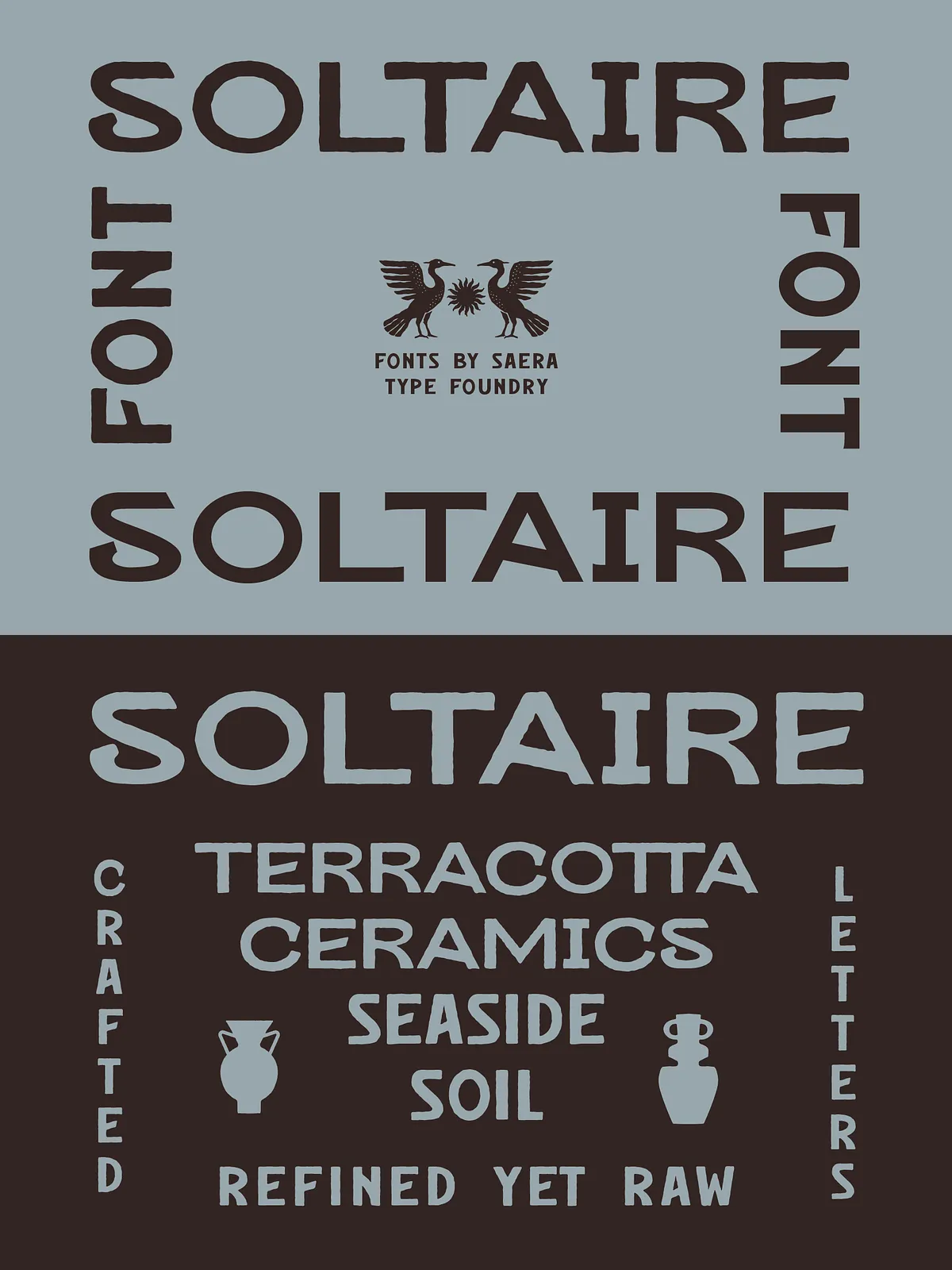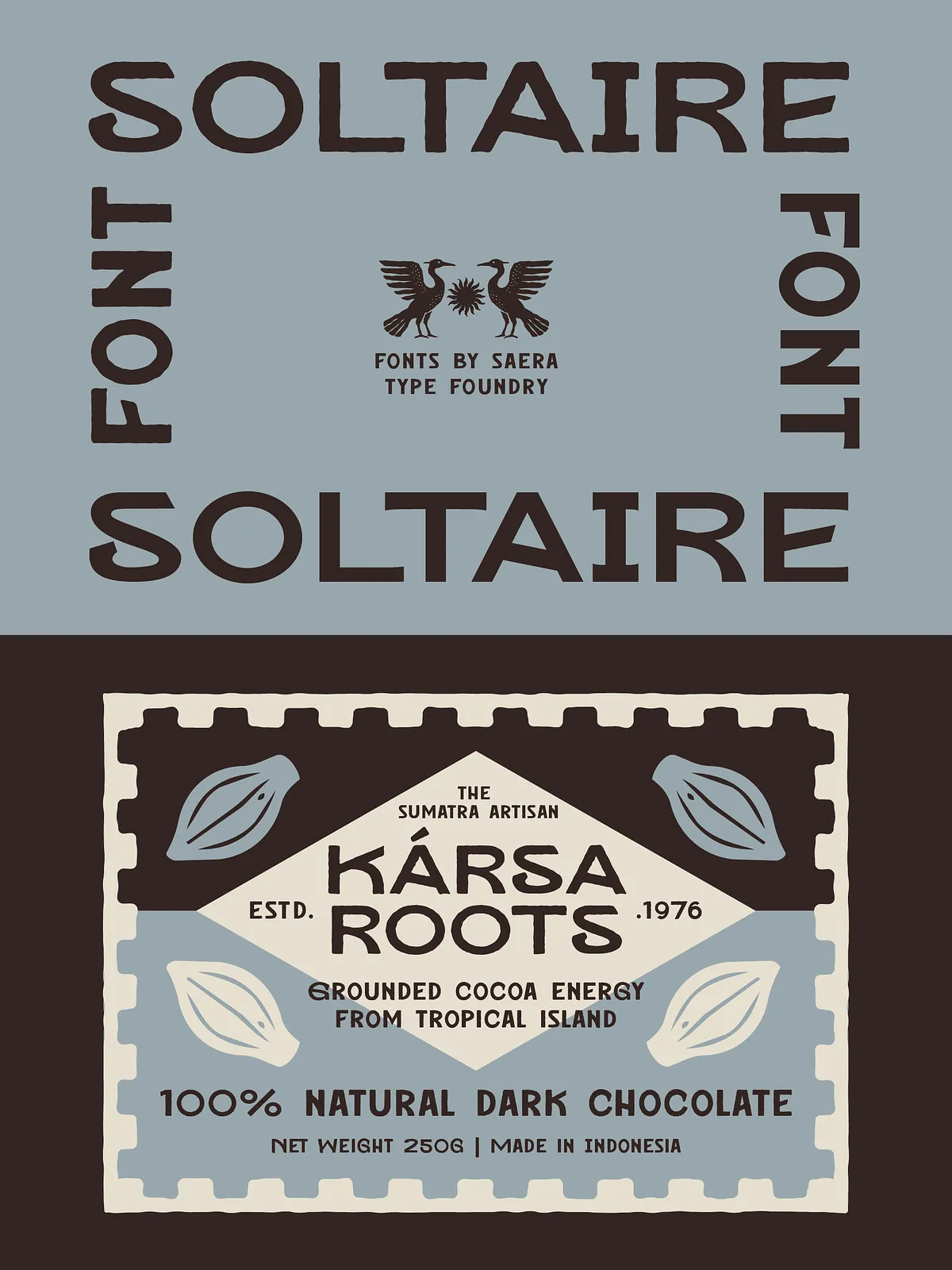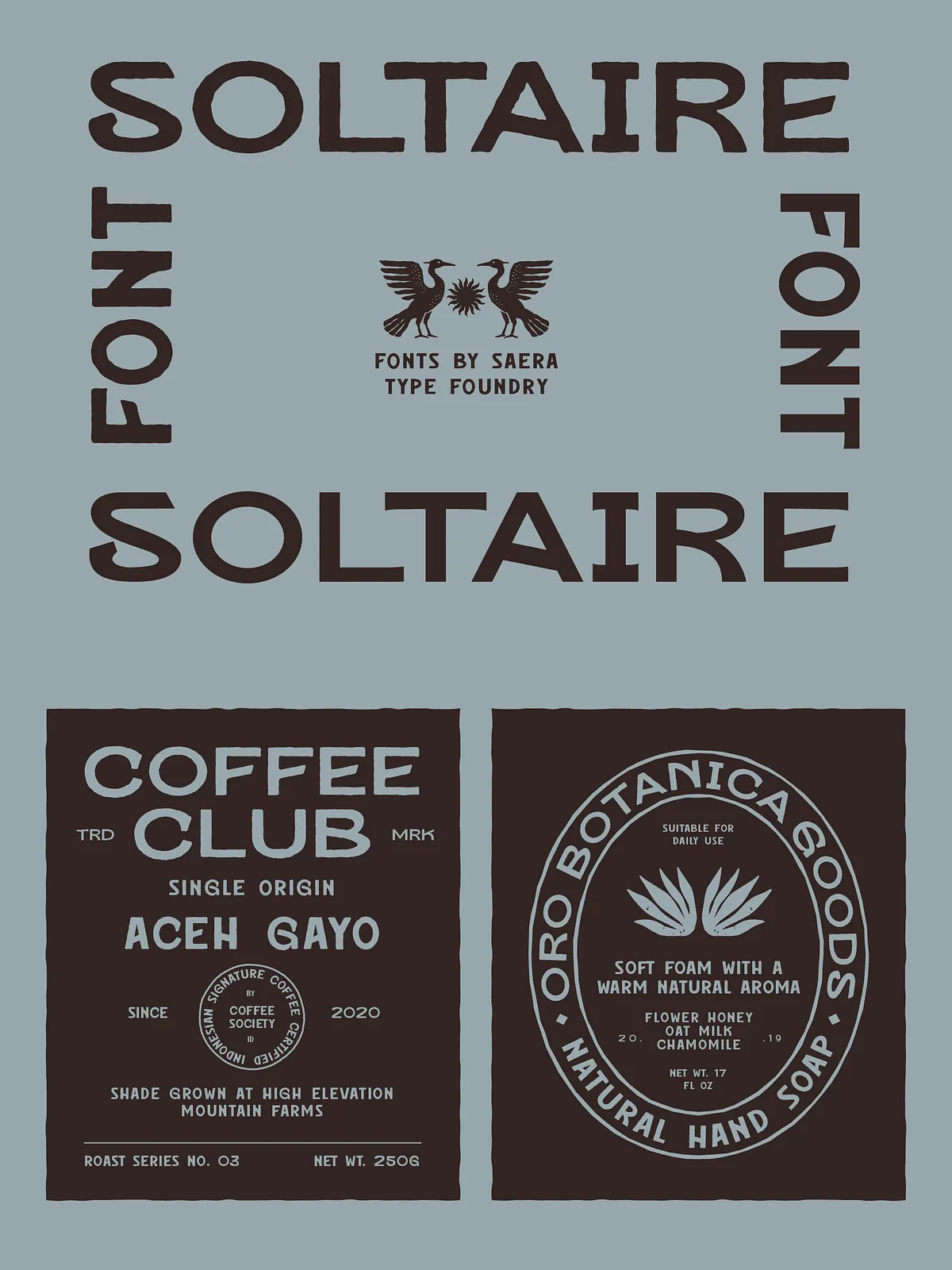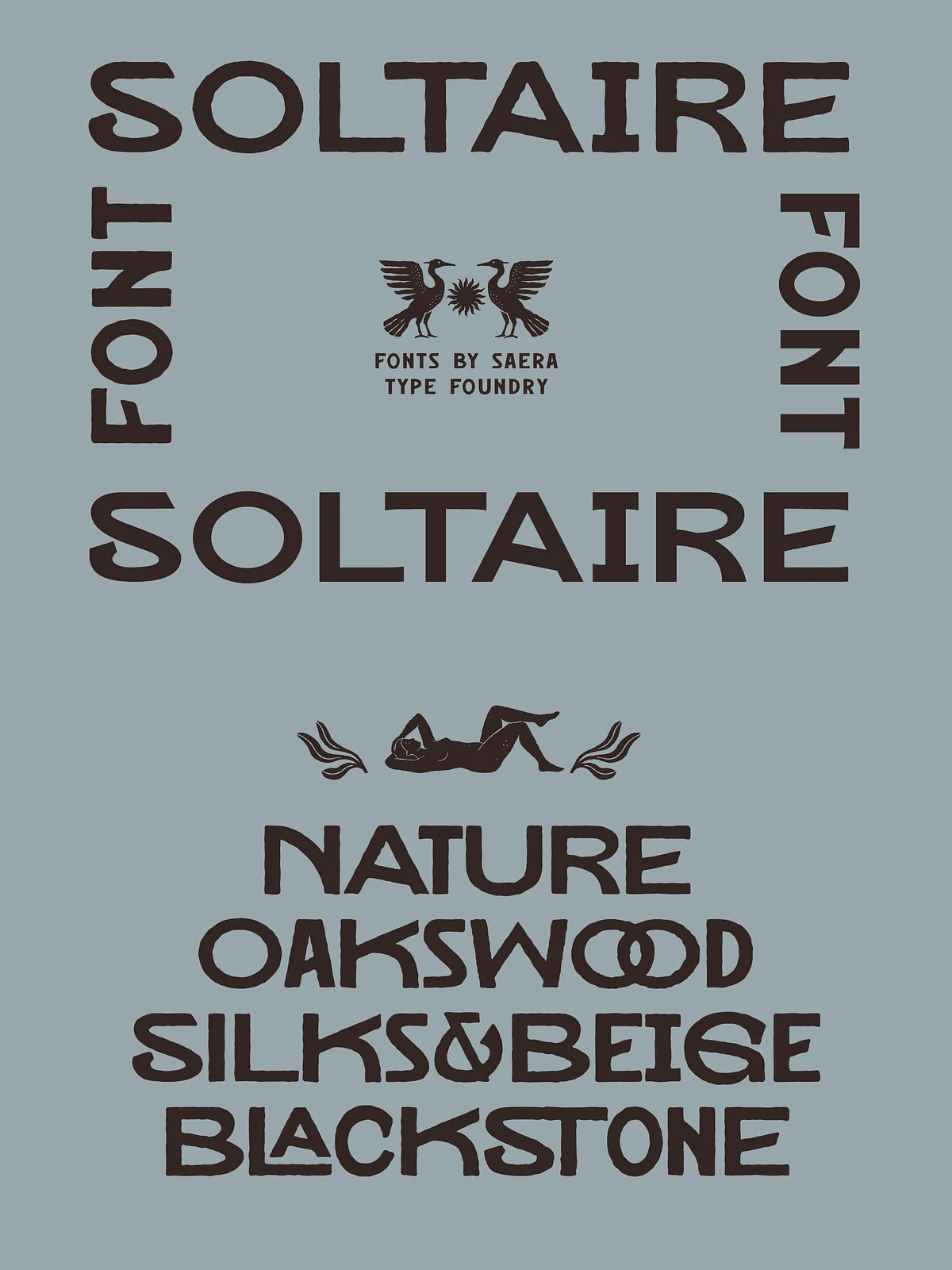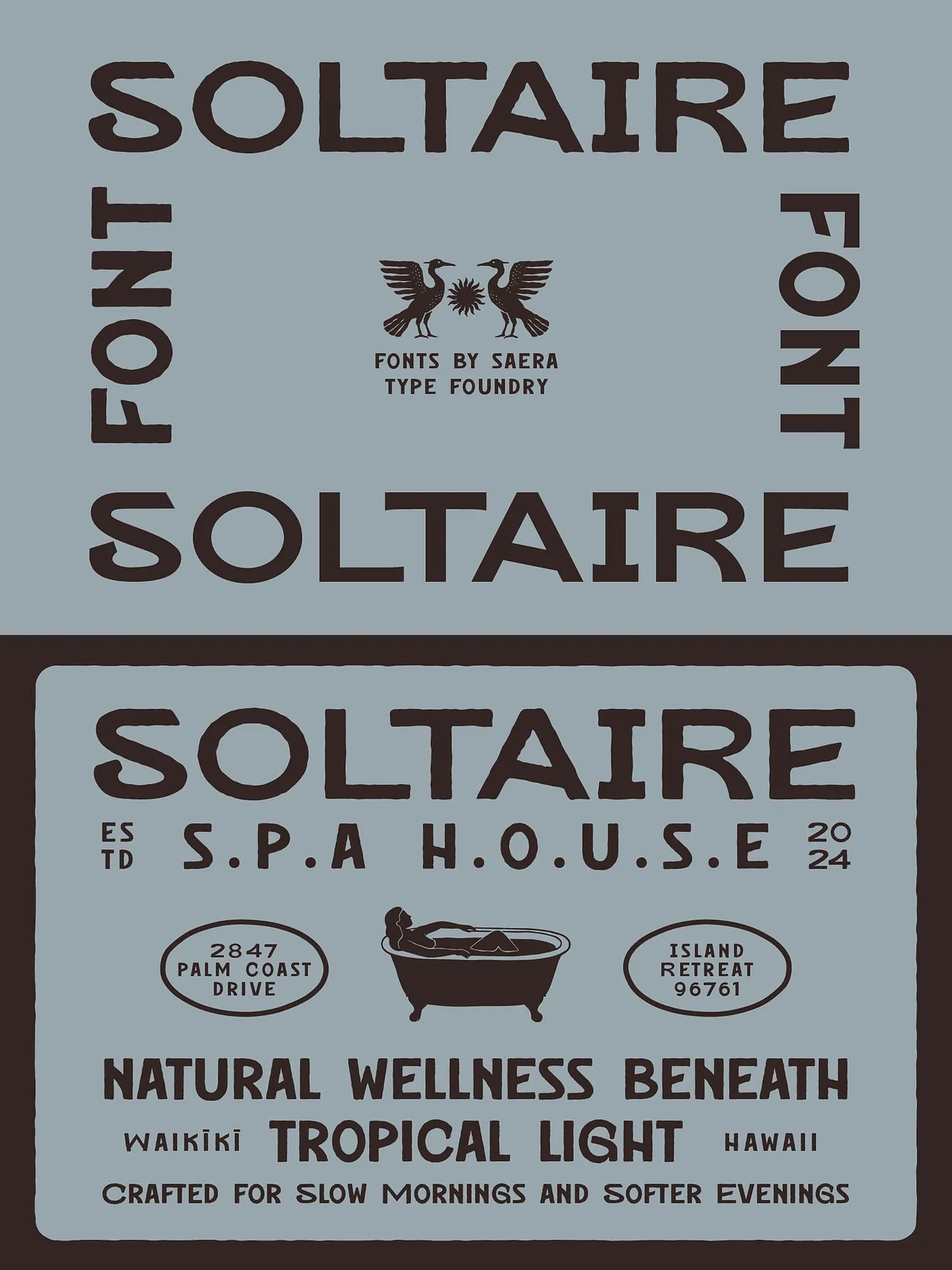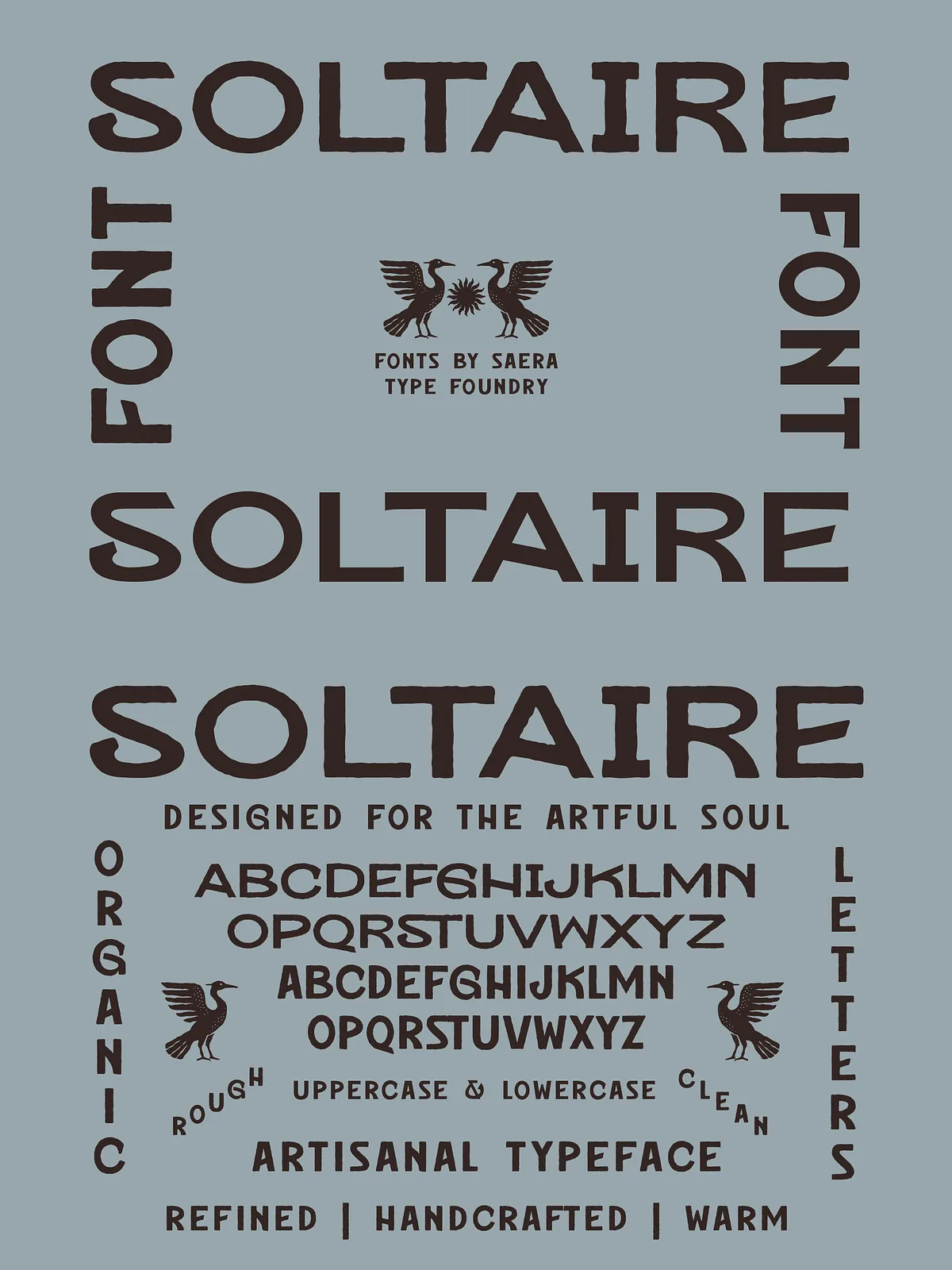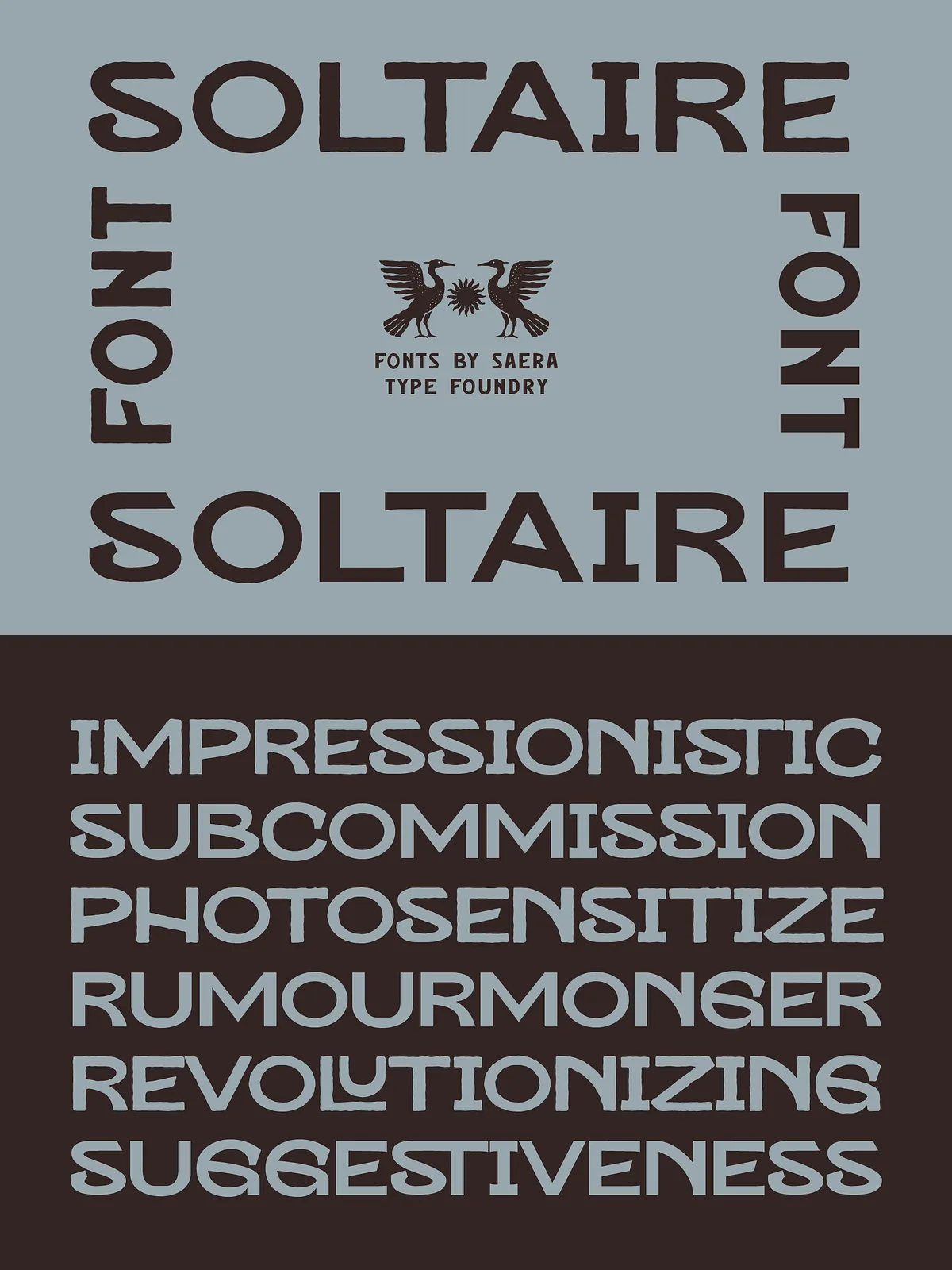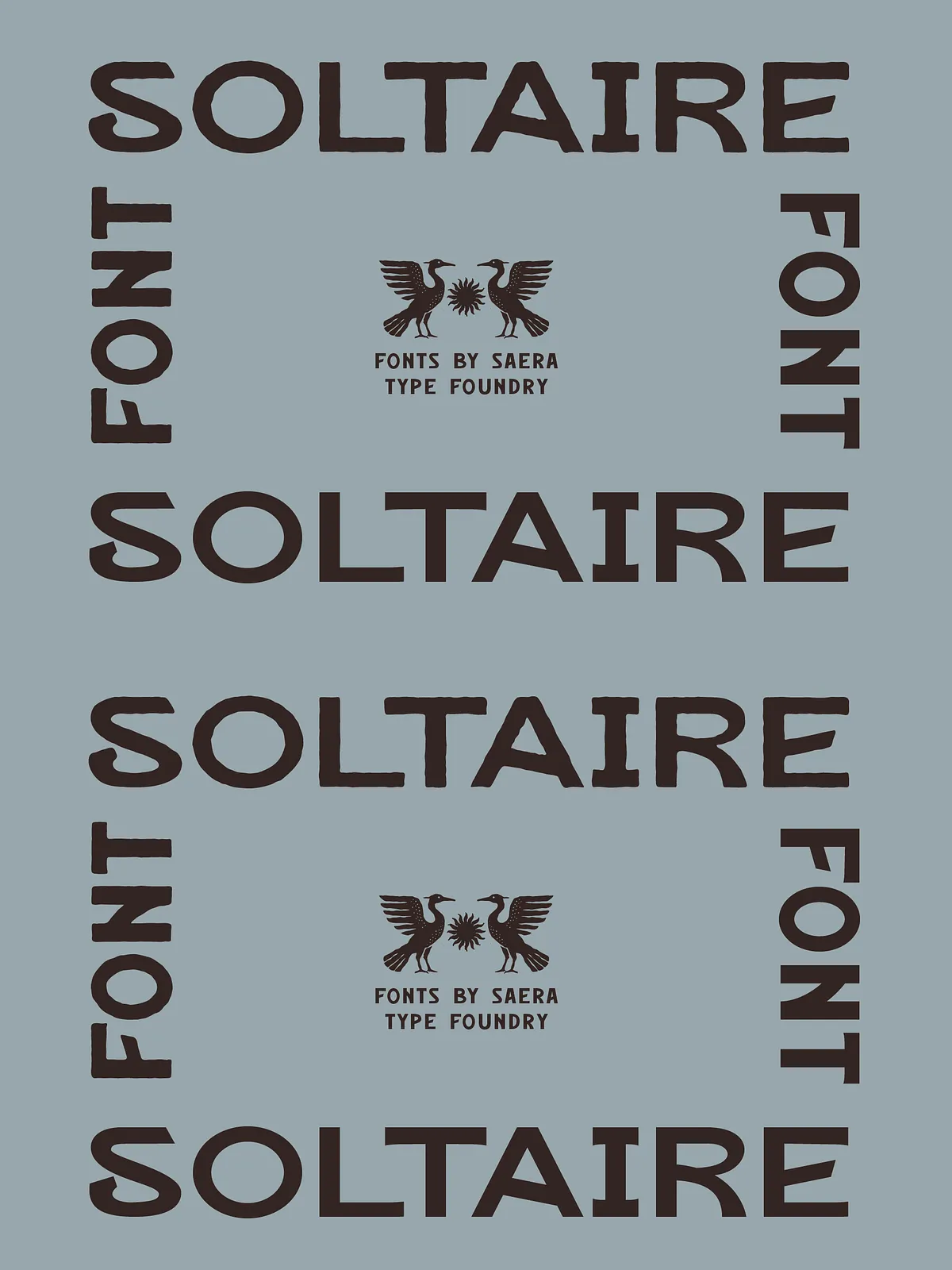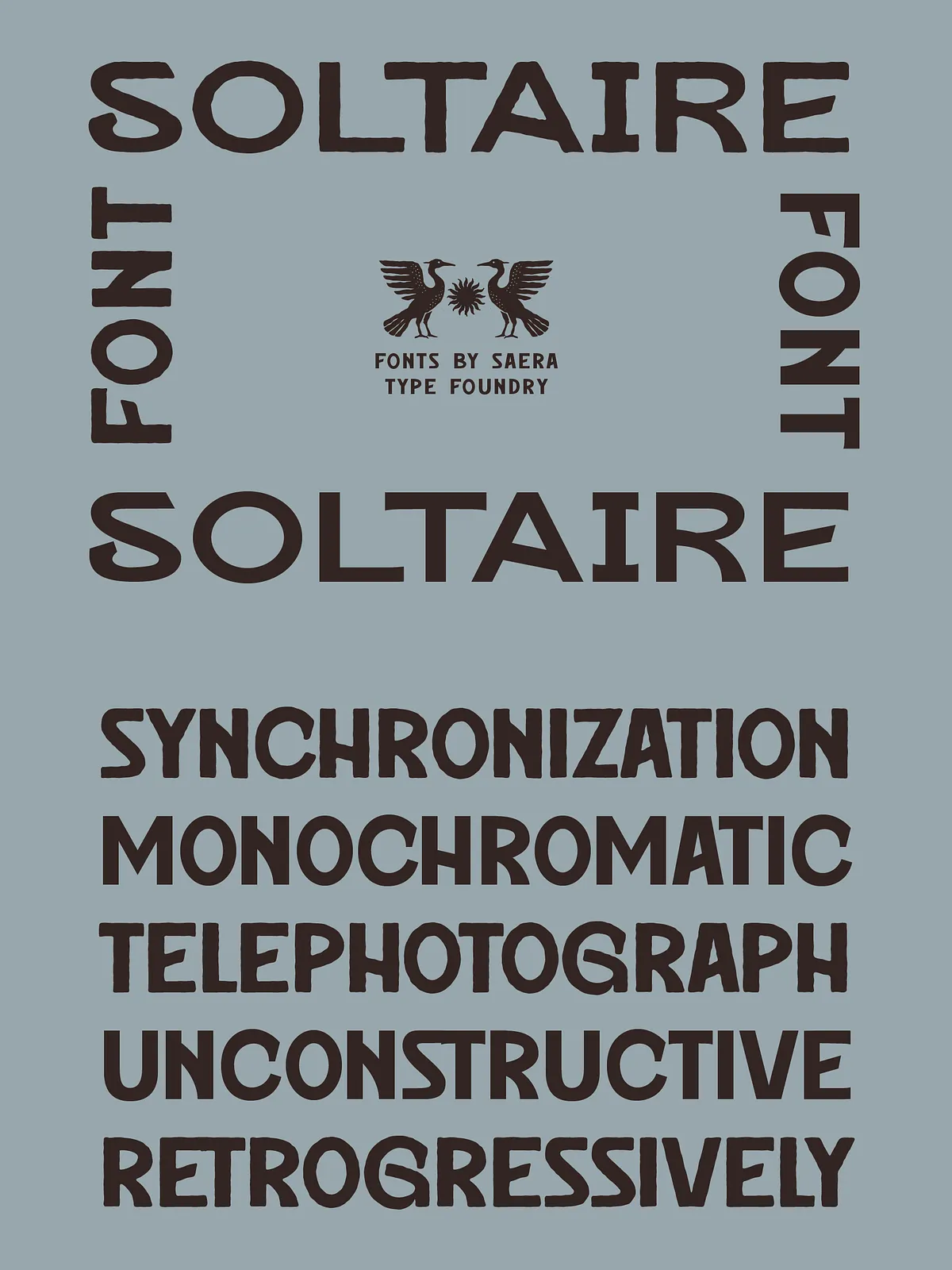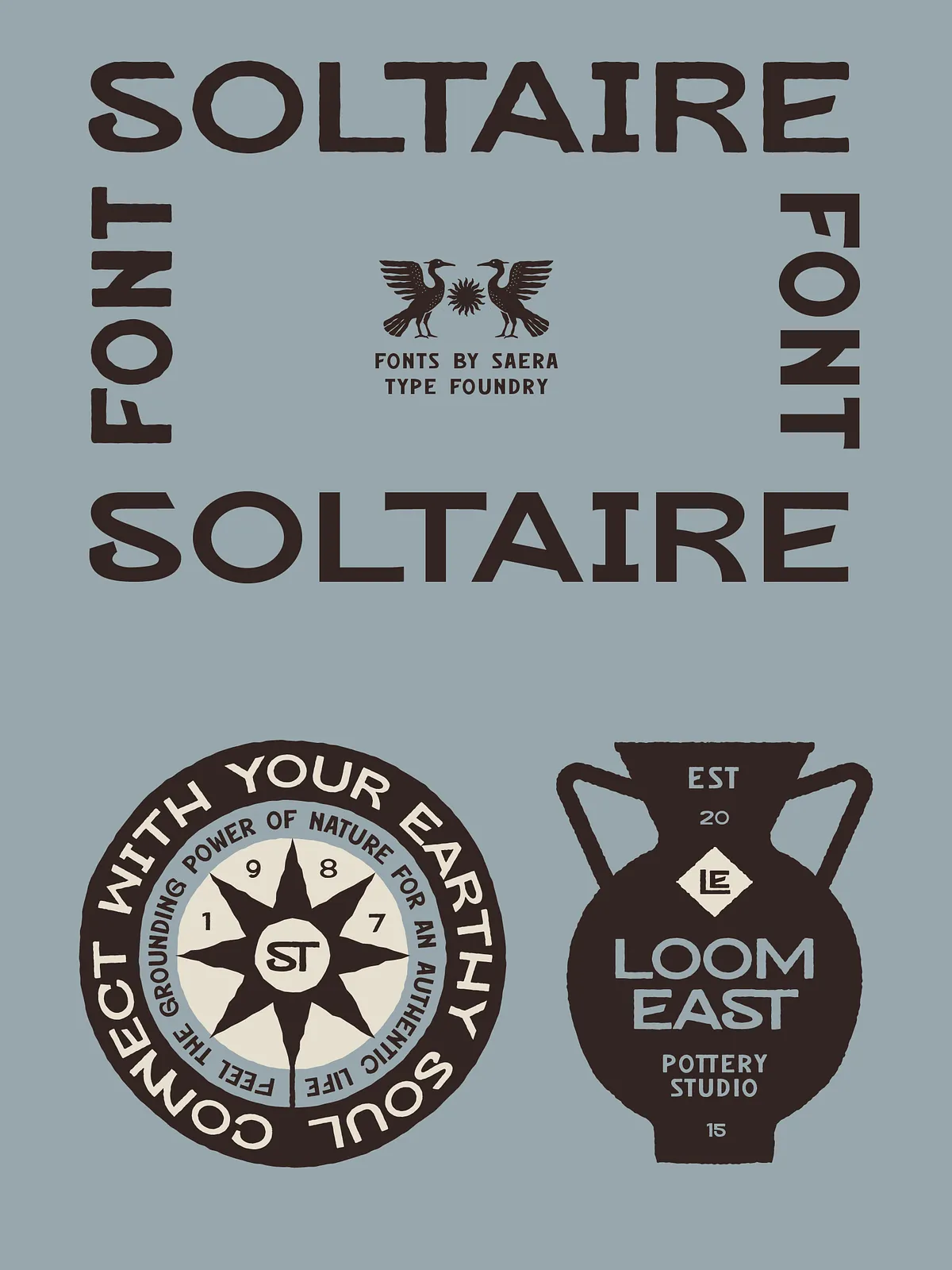
SOLTAIRE – Artisan Tropical Font
SOLTAIRE delivers a bold, expressive voice for brands that celebrate craft, island life, and tactile authenticity. Designed with primitive letterforms and subtle roughness, SOLTAIRE reads organic and approachable while maintaining strong display readability. The typeface evokes vintage hospitality signage, ceramic studio labels, and boutique resort identities—bringing an immediate sense of place and personality to packaging, signage, and editorial layouts.
Design Inspiration & Character
Rooted in islands, ceramics, and hospitality
Inspired by tropical resorts, artisanal ceramics, and mid-century hospitality signs, SOLTAIRE blends primitive structural cues with contemporary boutique aesthetics. The letterforms show handcrafted imperfections—soft rough edges, slightly uneven strokes, and gentle texture—that inject human warmth into every application. These deliberate imperfections enhance authenticity without sacrificing the clarity needed for brand marks and packaging copy.
Personality that performs
SOLTAIRE reads earthy, soulful, and expressive. Its personality fits brands that want to feel handcrafted rather than mass-produced: boutique cafés, natural skincare labels, resort signage, coffee packaging, perfume labels, and ceramics. The font commands attention on display uses and stays legible at moderate sizes, making it a reliable choice for both print and on-screen presentation.
Practical Applications
Where SOLTAIRE excels
• Brand Identity: Create memorable logos and wordmarks with SOLTAIRE’s distinctive letterforms that communicate artisan values.
• Packaging: Use SOLTAIRE on product fronts—coffee bags, skincare jars, ceramic tags—to convey handcrafted quality.
• Hospitality & Resorts: Apply SOLTAIRE to signage, menus, and wayfinding to evoke relaxed, tropical luxury.
• Editorial & Collateral: Feature SOLTAIRE in editorial headers, posters, and promotional materials for lifestyle publications.
• Cafés & Boutiques: Use SOLTAIRE for shop signage, menus, and merchandise to emphasize a human, crafted aesthetic.
Multilingual readiness
SOLTAIRE provides broad Latin coverage and common diacritics to support international packaging and branding. This ensures consistent typography across markets and simplifies localization for product lines or resort chains operating in multiple regions.
Usage Tips & Pairing Recommendations
How to style SOLTAIRE for maximum impact
Pair SOLTAIRE with clean, neutral sans-serifs for extended copy—this contrast keeps body text readable while letting SOLTAIRE supply personality in headlines and logos. For packaging, combine SOLTAIRE with a restrained serif or a geometric sans to balance rustic texture with modern clarity. Use generous letter spacing on uppercase display settings to preserve the organic edges and avoid visual crowding.
Practical adjustments
• Increase tracking slightly for large uppercase headlines to improve legibility.
• Apply subtle drop shadows or semi-opaque panels when overlaying busy photography to retain contrast.
• Reserve textured or rough weights for accents and logos; avoid using texture for small body copy to maintain clarity.